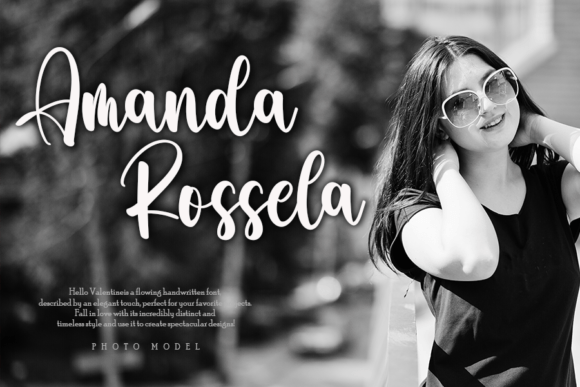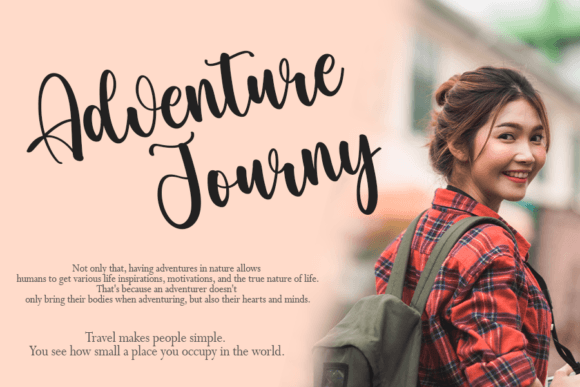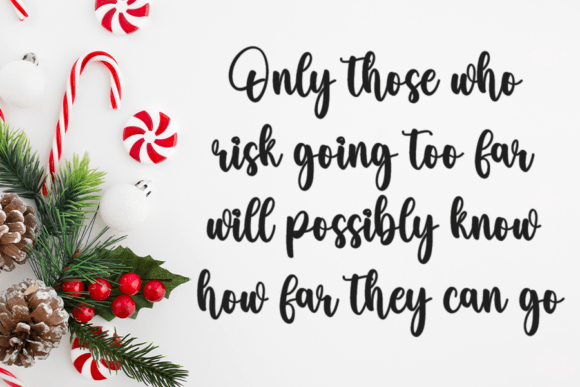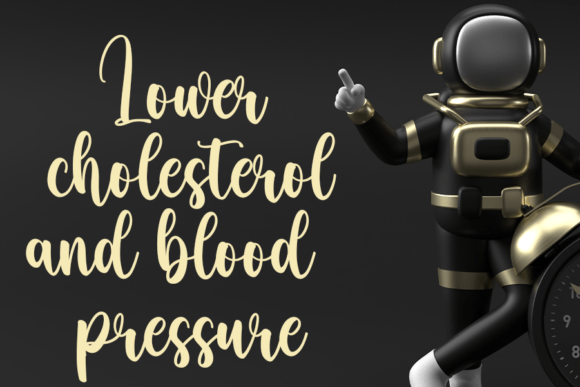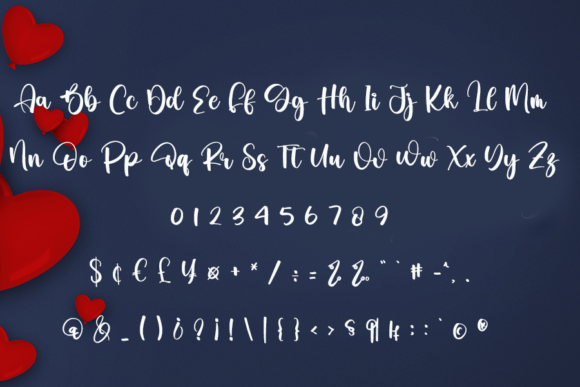
Adding a Touch of Romance to Your Designs
As a designer, there’s nothing quite like the thrill of seeing a project come together. You’ve poured your heart and soul into every detail, from the color palette to the typography. And then, it hits you – the perfect font that elevates your entire design to new heights. For many creatives, this moment of epiphany is what makes all the hard work worth it.
One font that has captured the hearts of designers everywhere is Hello Valentine Font. This stylish handwritten font exudes a contemporary atmosphere and impeccable form, drawing inspiration from timeless classic calligraphy. Its balanced and varied design makes it the perfect choice for adding a touch of romance to your projects.
Hello Valentine Font Key Features
- Font Size: The font family consists of multiple weights, ranging from Light to Bold, allowing for flexibility in design and typography.
- Unique Characteristics: Hello Valentine Font features a distinctive, hand-drawn style with intricate details and flourishes, adding a touch of elegance and whimsy to any design.
- Scalability: The font is designed to be highly scalable, ensuring that it looks great in a variety of sizes, from small text to large headlines.
Hello Valentine Font Review
I recently had the chance to work with the Hello Valentine font, and I must say it’s a lovely addition to any design project. ✨ The font’s playful and whimsical feel makes it perfect for creating a romantic atmosphere, especially around Valentine’s Day. The ligatures and swashes add a touch of elegance, making it suitable for wedding invitations, greeting cards, and other love-themed designs.
Here are some of the things that work well with this font:
- Perfect for Valentine’s Day and love-themed designs
- Playful and whimsical feel
- Elegant ligatures and swashes
- May not be suitable for formal or professional designs
- Can be difficult to read in small sizes
- May require additional formatting to achieve the desired look
Overall, I think the Hello Valentine font is a great addition to any designer’s toolkit. While it may have some limitations, its unique charm and versatility make it a valuable resource for creating beautiful and romantic designs. With a little creativity and experimentation, you can achieve stunning results with this font.
Use the “Hello Valentine Font” for romantic and festive designs, such as Valentine’s Day cards, invitations, and posters.
It’s also suitable for wedding invitations, love letters, and other sentimental designs.
Alternative Fonts to Hello Valentine Font
Pacifico is a beautiful, elegant script font perfect for wedding invitations, baby announcements, and other special occasions. It’s a great alternative to Hello Valentine Font for designers who want a more sophisticated and refined look.
Comparison to Hello Valentine Font: Pacifico has a more refined and elegant feel compared to Hello Valentine Font, which has a more playful and whimsical vibe. Pacifico is ideal for designers who want to convey a sense of luxury and sophistication.
Great Vibes is a modern script font that’s perfect for designers who want to create a fun and lively atmosphere. It’s a great alternative to Hello Valentine Font for designers who want a more energetic and youthful vibe.
Comparison to Hello Valentine Font: Great Vibes has a more energetic and playful feel compared to Hello Valentine Font, which has a more romantic and whimsical vibe. Great Vibes is ideal for designers who want to create a fun and lively atmosphere.